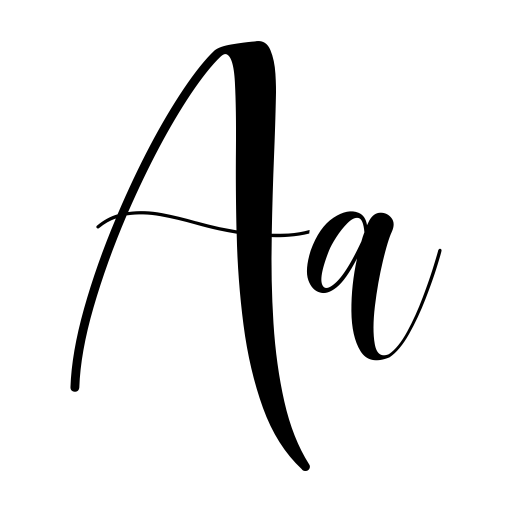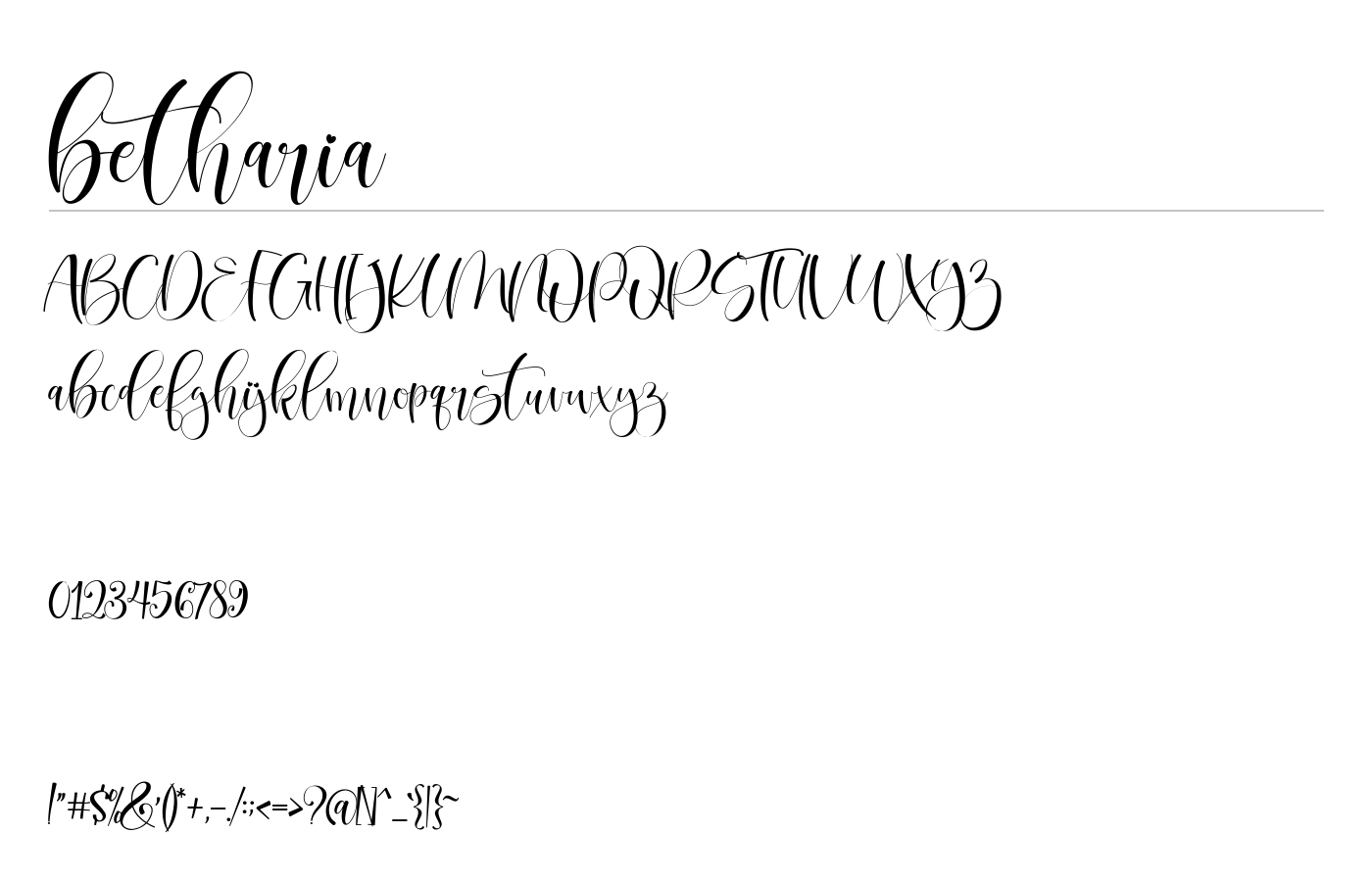
Betharia is an elegant, delicate script font with high contrast between thick and thin strokes, creating a graceful and airy feel. Its flowing, calligraphic letterforms with dramatic swashes make it perfect for luxury branding, wedding invitations, and sophisticated logos where a refined and romantic touch is desired. This font works best in headline or display use, adding a stylish and personal vibe to any design.
betharia Font